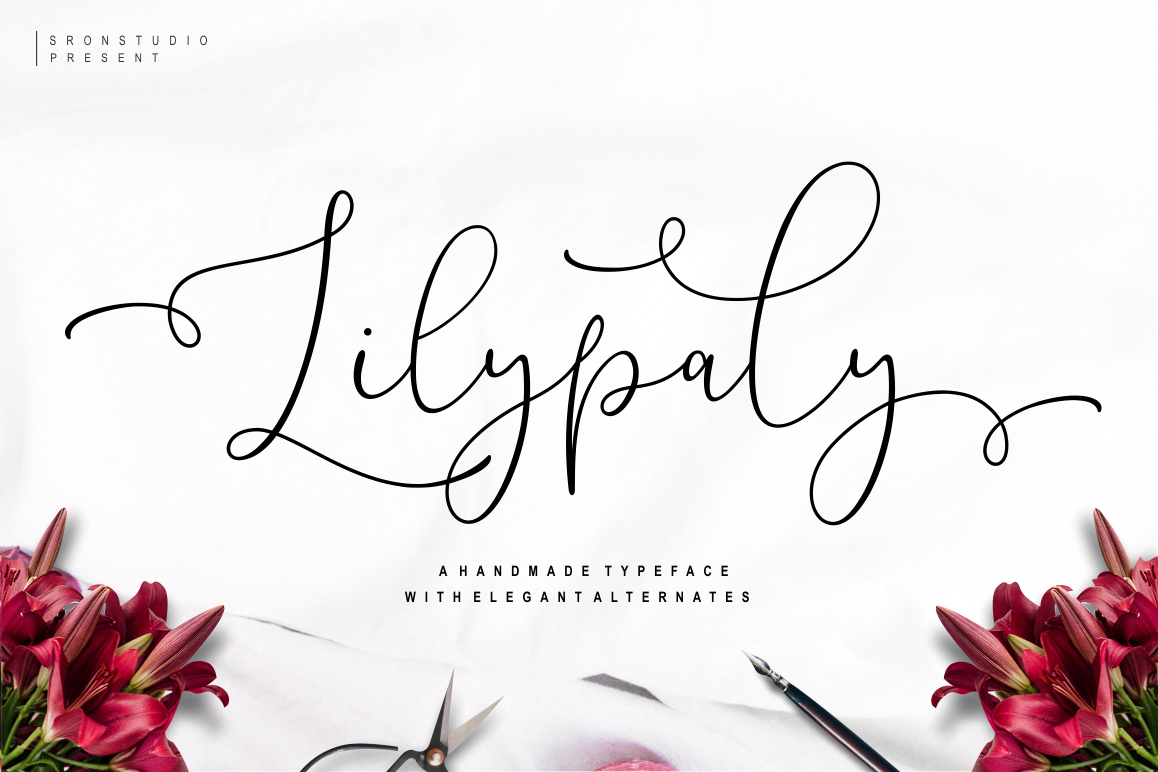
Lilypaly Typeface
Lilypaly
Introducing my new font Lilypaly !
Lilypaly is a modern font with a lot of elegant stylistic alternates thats makes your projects more beautiful. I made this font carefully so that each letter could be connected well and elegantly either using alternate or not.
Lilypaly includes start and ending swash, and middle swash for some letters, this is very easy to use, just rely on your creativity !
• Ligature & alternates